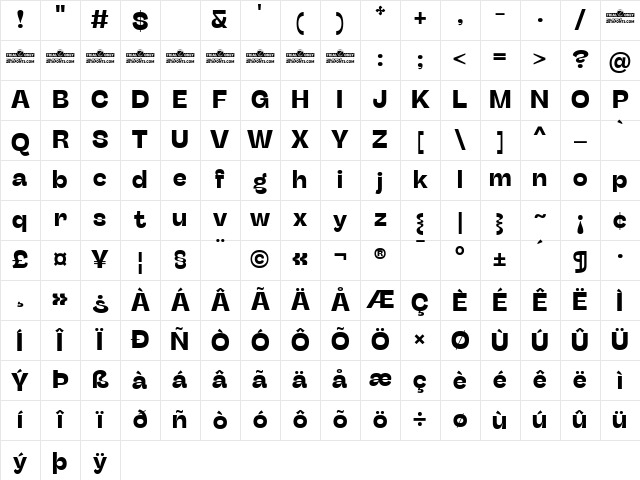
Stinger Fit Trial Bold
Foundry: Studio Kmzero & Zetafonts
Designer: Cosimo Lorenzo Pancini
Design Context for Stinger Fit Trial
Stinger Fit Trial is a composed and adaptable typeface that performs quietly and consistently across a wide range of design contexts. Its bold stroke weight gives it real presence on the page.
Who designed the Stinger Fit Trial Bold font?